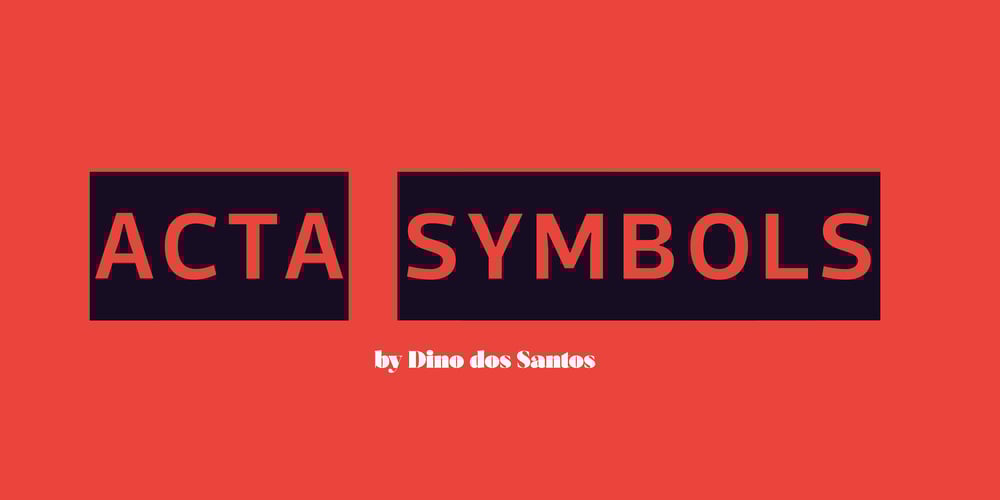
Acta Symbols
Acta Symbols font
Acta Symbols Font Family was designed by Dino dos Santos and published by Monotype. Acta Symbols contains 8 styles and family package options. First designed for chilean newspaper La Tercera in 2010, Acta family is a clean and fresh type system, while enough conservative for newspaper setting. The complete Acta Type System contains Acta and Acta Display both with six weights with matching italics; Acta Symbols with an amazing collection of symbols specially designed for newspapers and magazines and Acta Poster, a heavyweight version, elegant and eye catching in three styles with plenty of ligatures and alternates.